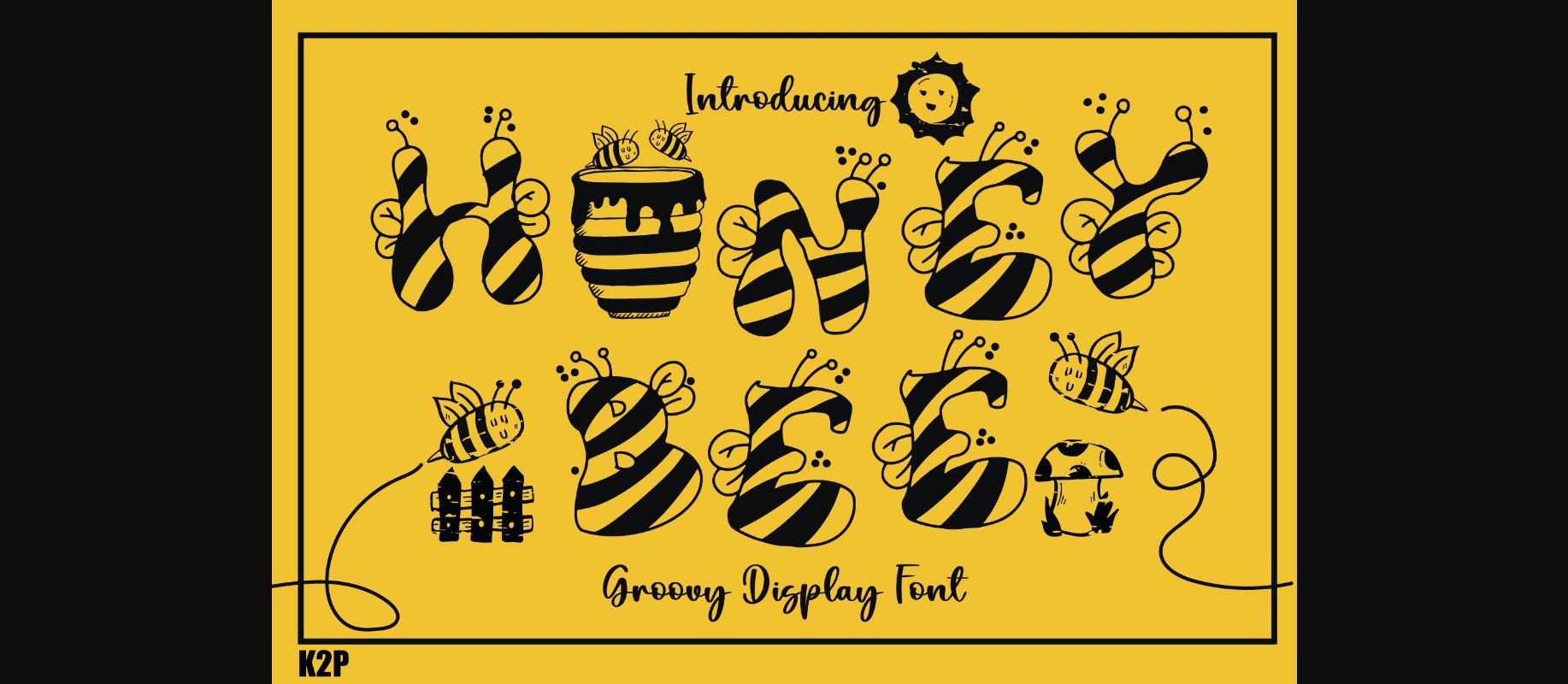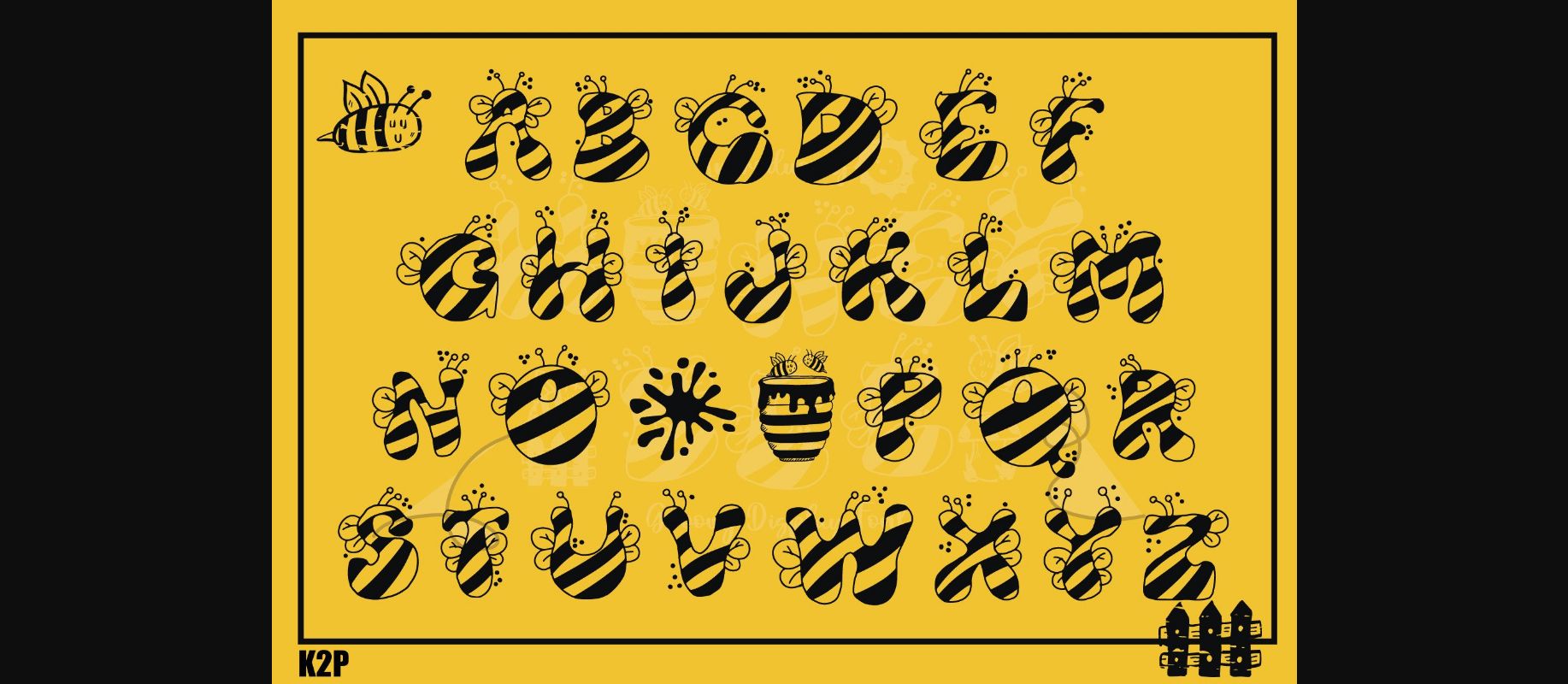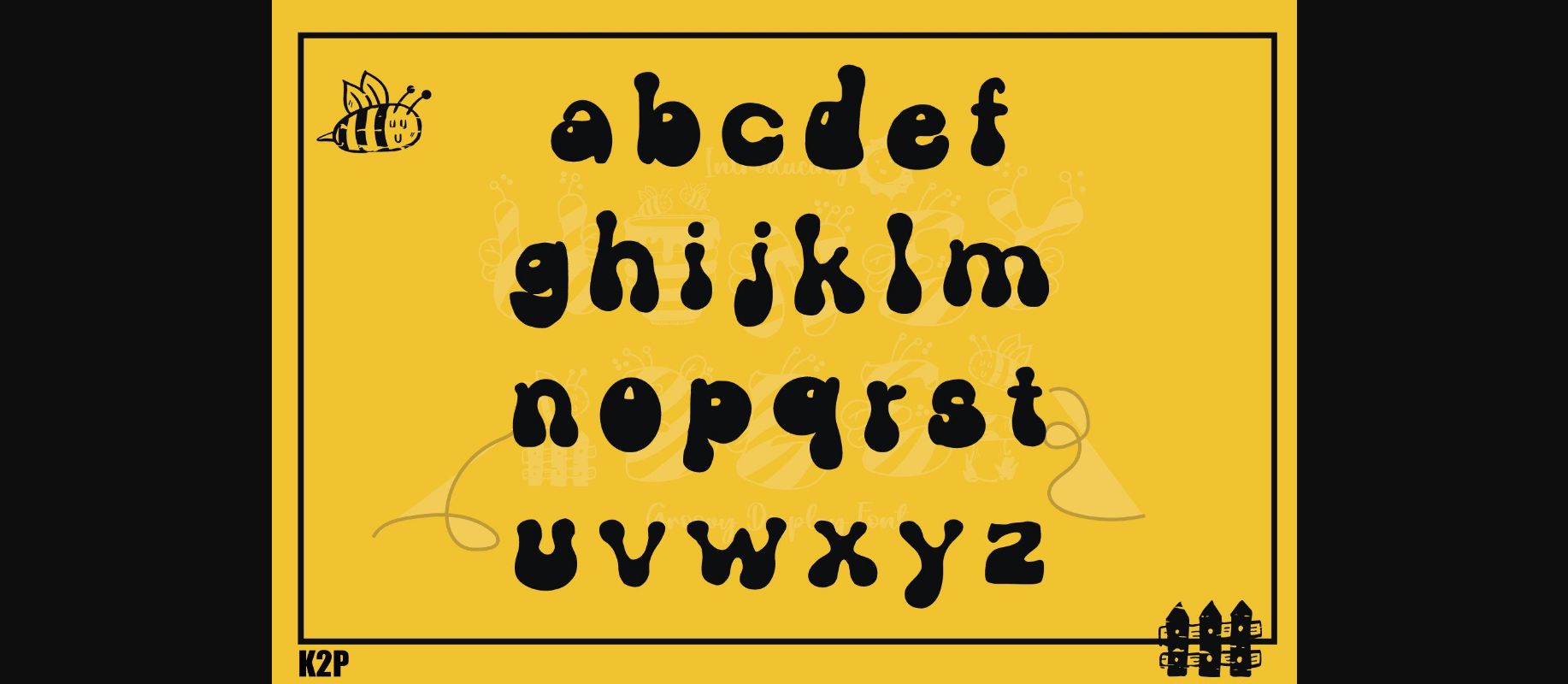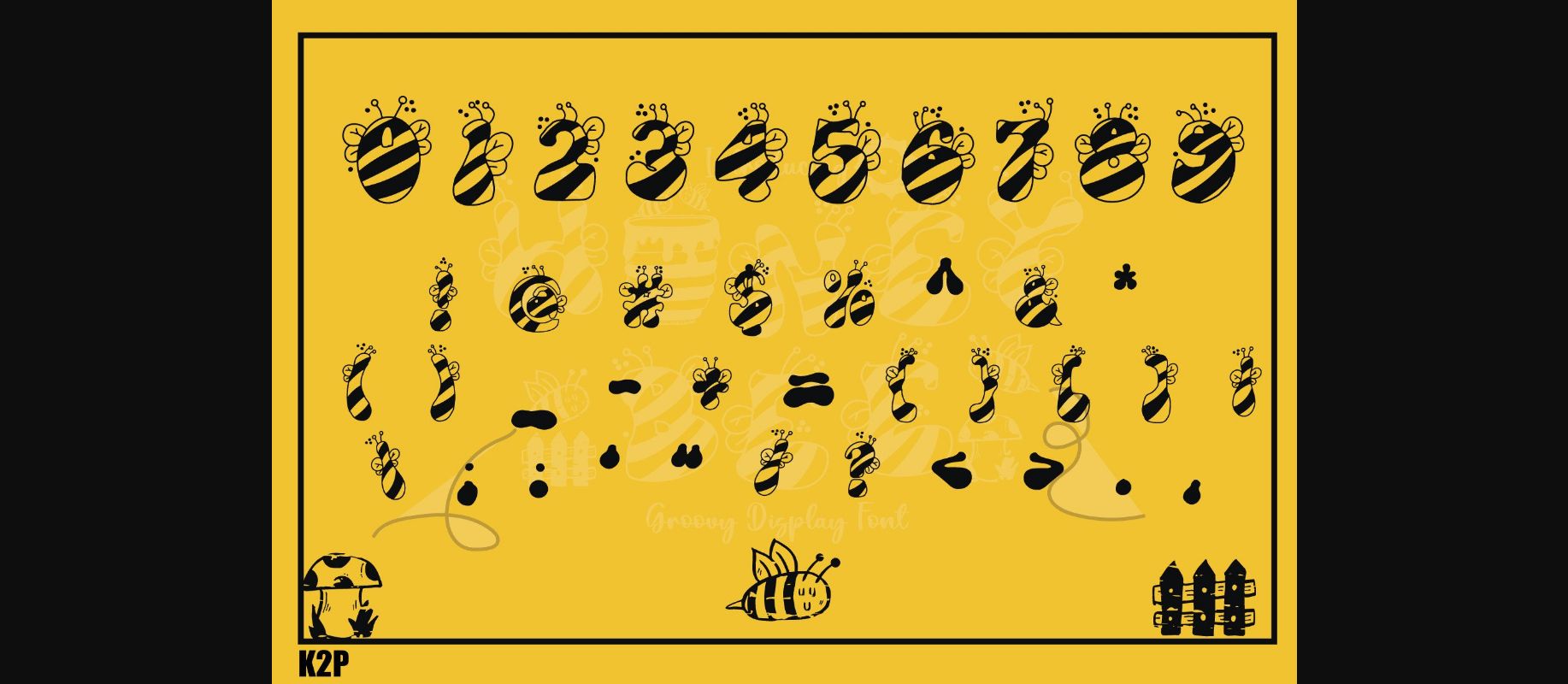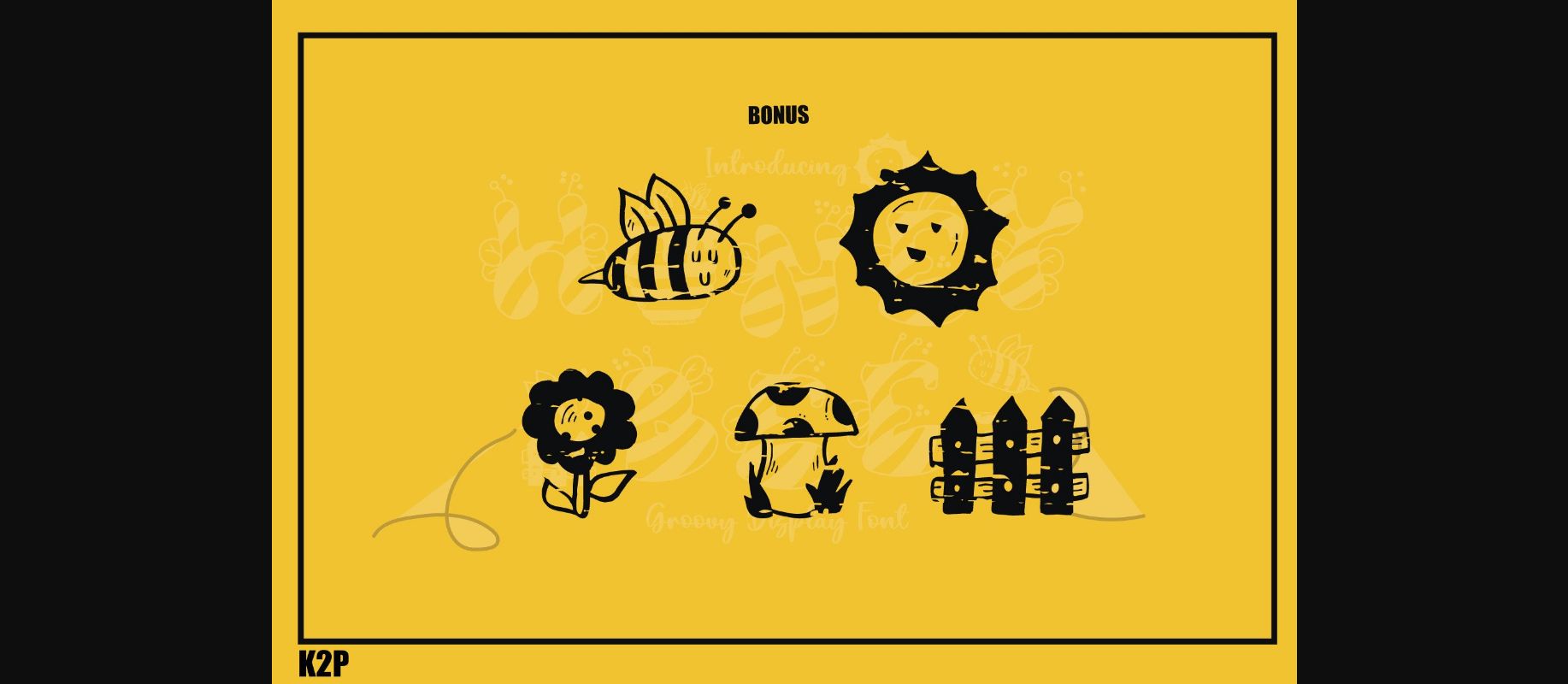
Honey Bee embodies fun, quirkiness, and authenticity. This enchanting decorative font will turn any creative idea into a true standout. Get creative with its original style, and use it to brighten up any farm-related projects.